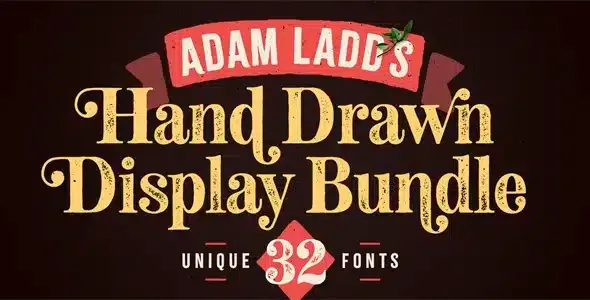
Adam Ladds Hand Drawn Display Bundle Fonts
Introducing Adam Ladds Hand Drawn Display Bundle Fonts, a collection of 32 unique fonts ideal for headlines that require a human touch. There are a variety of styles to choose from (script, sans, serif, ornate) that can be mixed and matched to suit your needs.
All by Hand
The common thread with Adam Ladds Hand Drawn Display Bundle Fonts is that they have been created by hand. The organic, artisanal qualities are evident in the large sizes, but they have also been carefully drawn with readability in mind.
Whether it’s food packaging, a title for publishing in books and magazines, or a lifestyle brand and website, these fonts will be a useful toolkit for adding typographic expression to your designs.